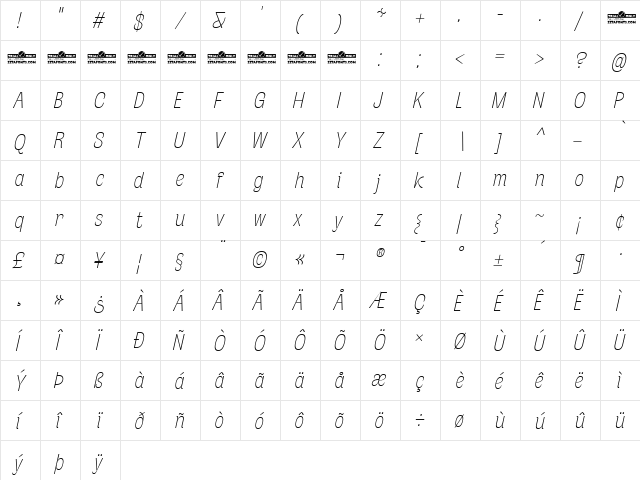
Stinger Slim Trial Thin Italic
| Foundry | Studio Kmzero & Zetafonts |
| Designer | Cosimo Lorenzo Pancini |
Design Context for Stinger Slim Trial Typeface
Stinger Slim Trial is a composed and adaptable typeface that performs quietly and consistently across a wide range of design contexts. The slanted form adds forward momentum and visual energy. The delicate stroke weight brings airiness and refinement to layouts.